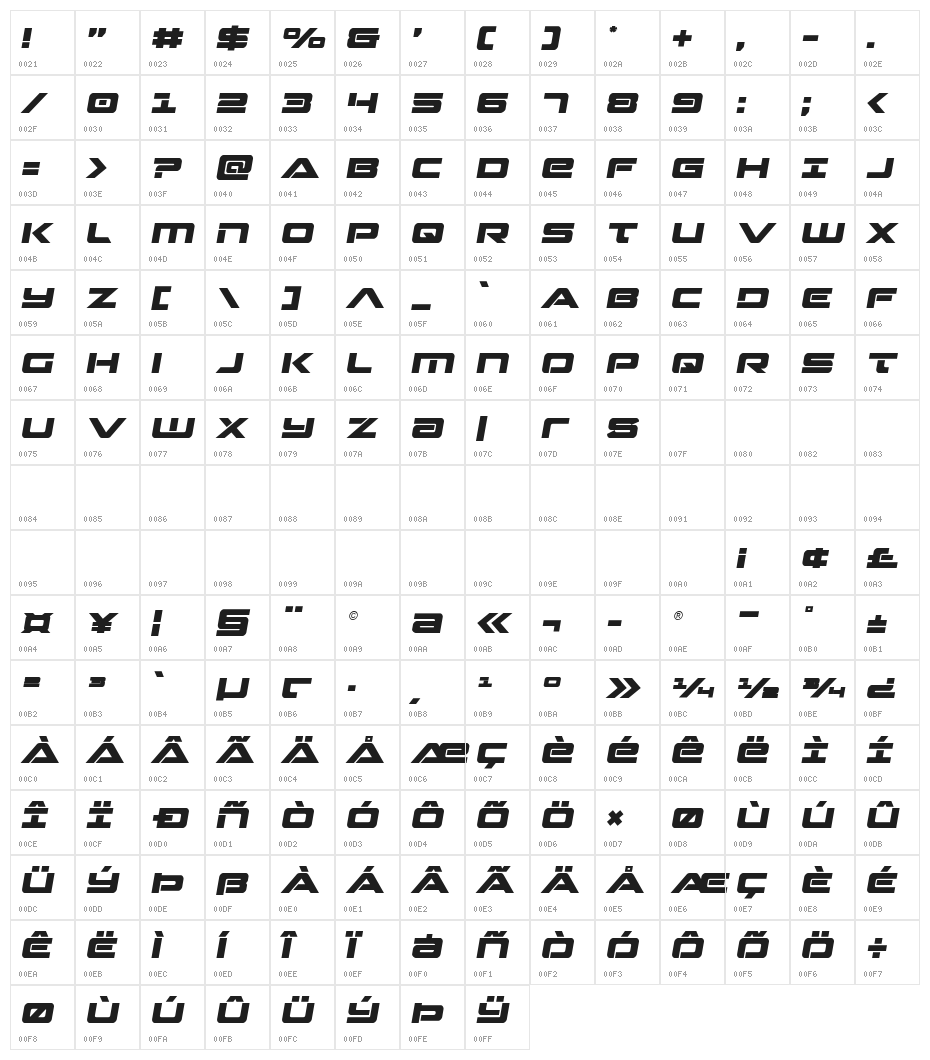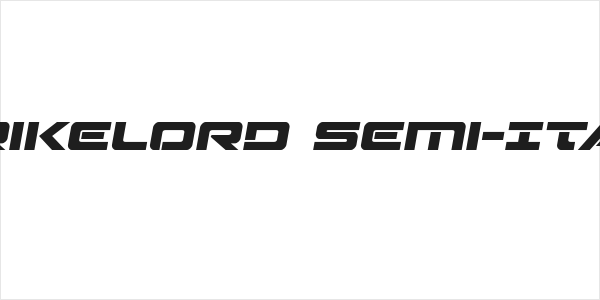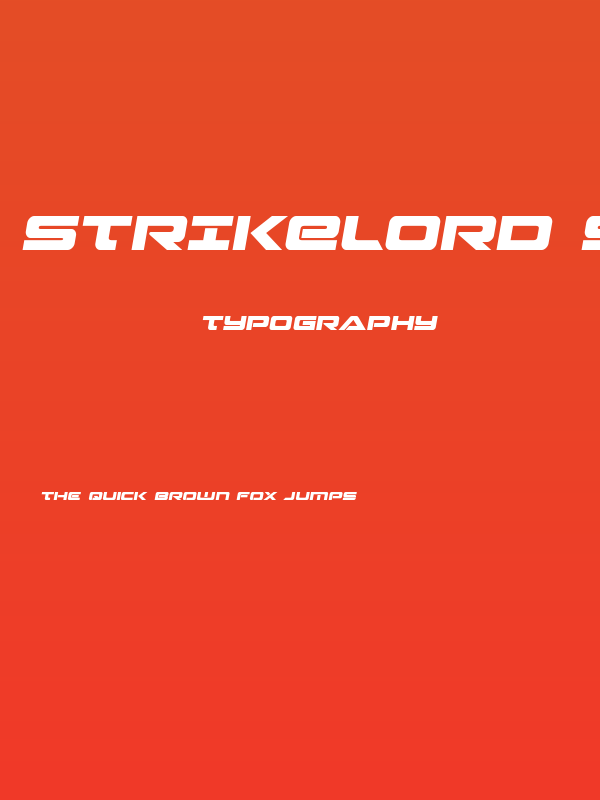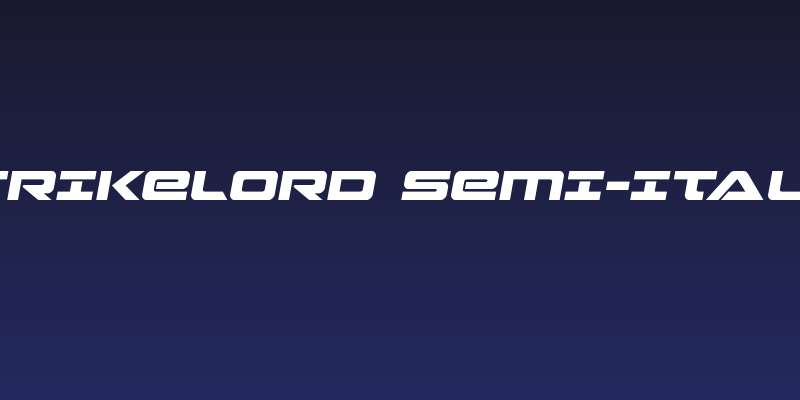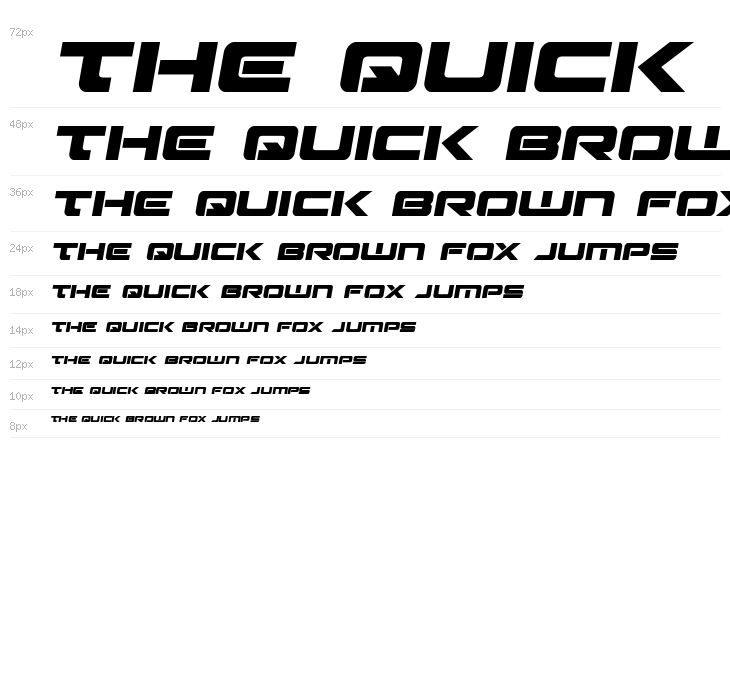
Strikelord Semi-Italic Font
Strikelord Semi-Italic Description
This font features a bold, futuristic design with a semi-italic slant, giving it a dynamic and forward-moving appearance. The characters are constructed with sharp angles and clean lines, creating a sense of speed and modernity. The uppercase and lowercase letters maintain a consistent style, with the lowercase being slightly more compact. Numbers and special characters follow the same angular and bold aesthetic, ensuring uniformity across all glyphs. The font's design is ideal for projects that require a strong, impactful presence.
| Proposed Projects | Ideal for sports branding, technology logos, video game titles, and sci-fi themed designs. |